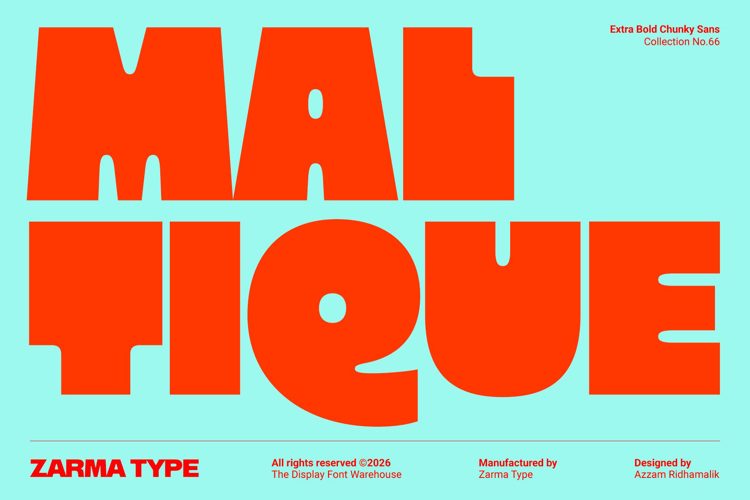
Maltique Font
Meet Maltique, an extra bold chunky sans serif that turns bold typography into something unexpectedly warm and full of personality. Built with oversized proportions, heavy strokes, sharp outer corners, and soft melty inner curves, every letter creates a striking balance between strength and playfulness. Inspired by expressive packaging, retro-inspired branding, and contemporary display design, Maltique transforms ordinary headlines into memorable visual statements that instantly capture attention.
Whether you're designing food packaging, restaurant branding, bold logos, posters, merchandise, editorial layouts, or social media campaigns, Maltique delivers confident impact without feeling overwhelming. Its distinctive letterforms bring energy, friendliness, and character to every project, making it an ideal choice for designers who want typography to become the centerpiece of their work. From playful identities to modern commercial branding, Maltique helps every message feel bigger, bolder, and impossible to ignore.